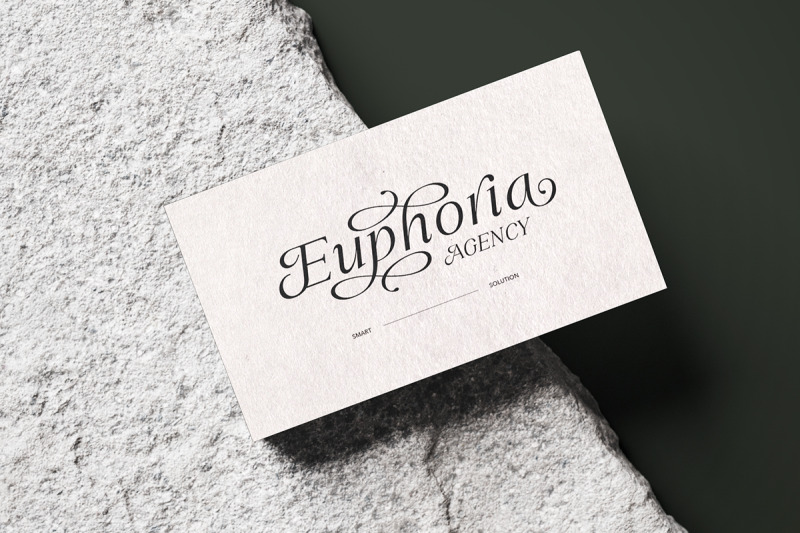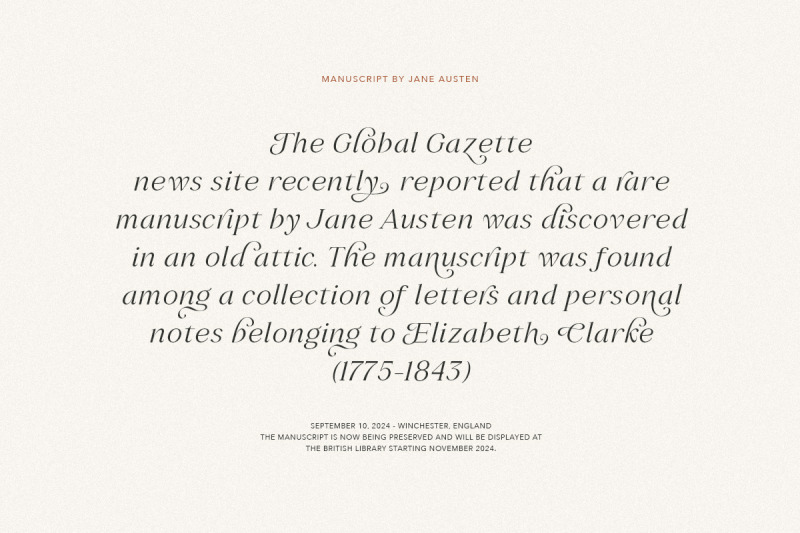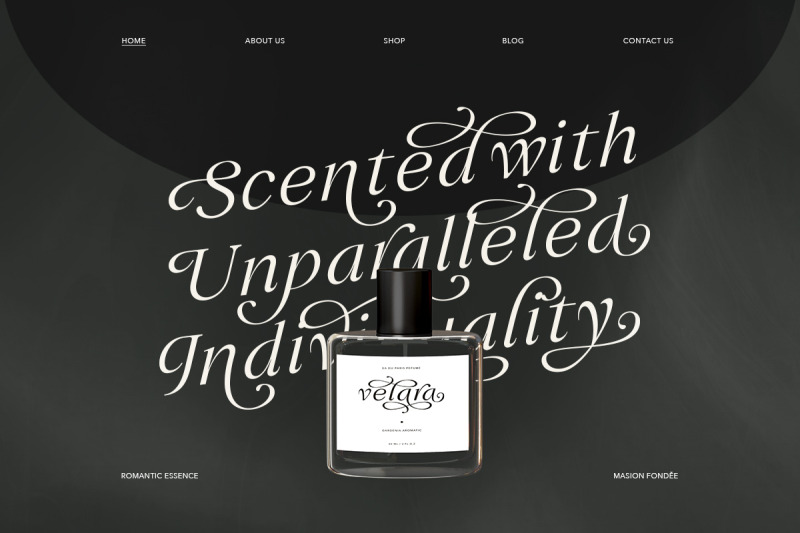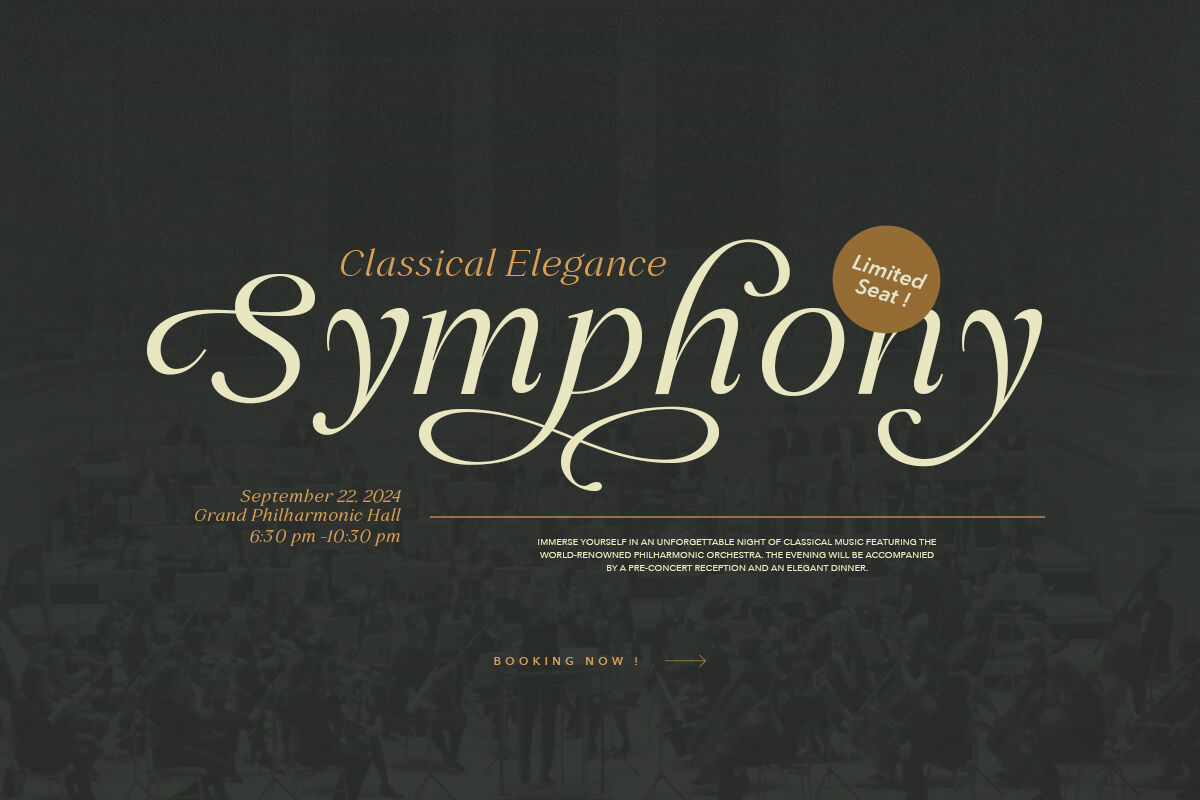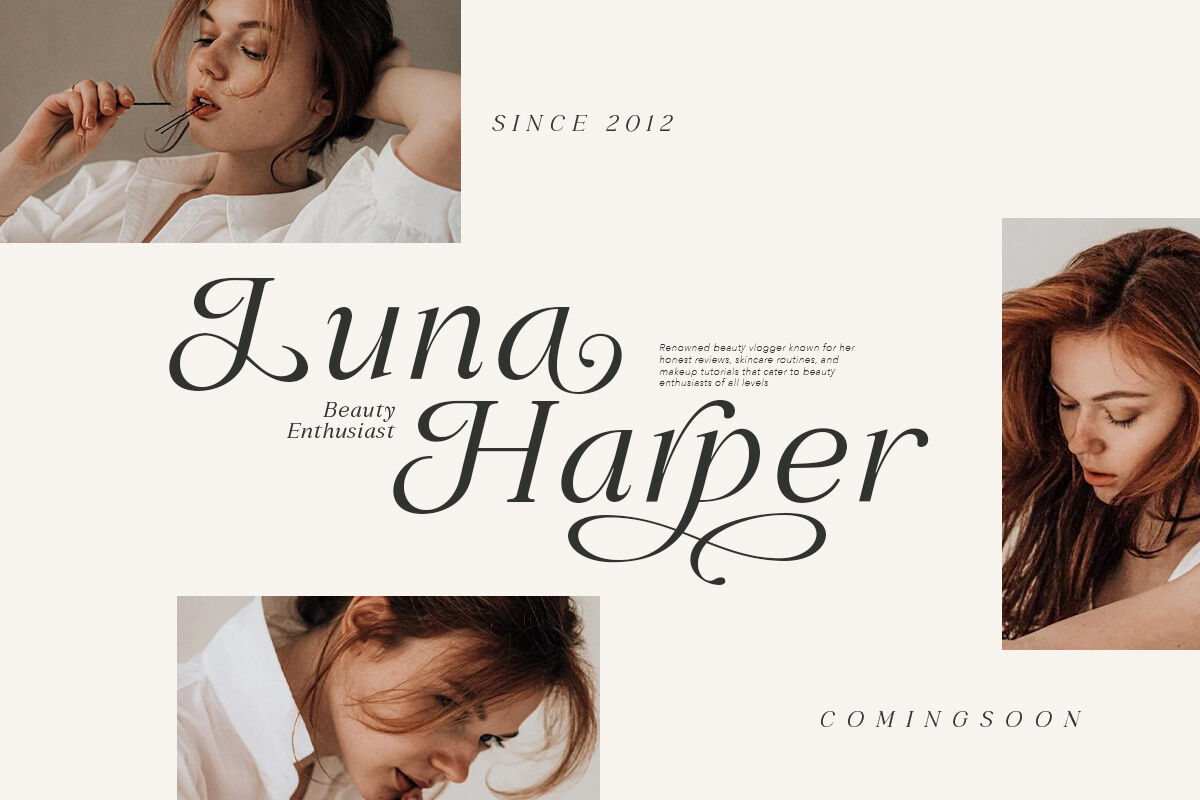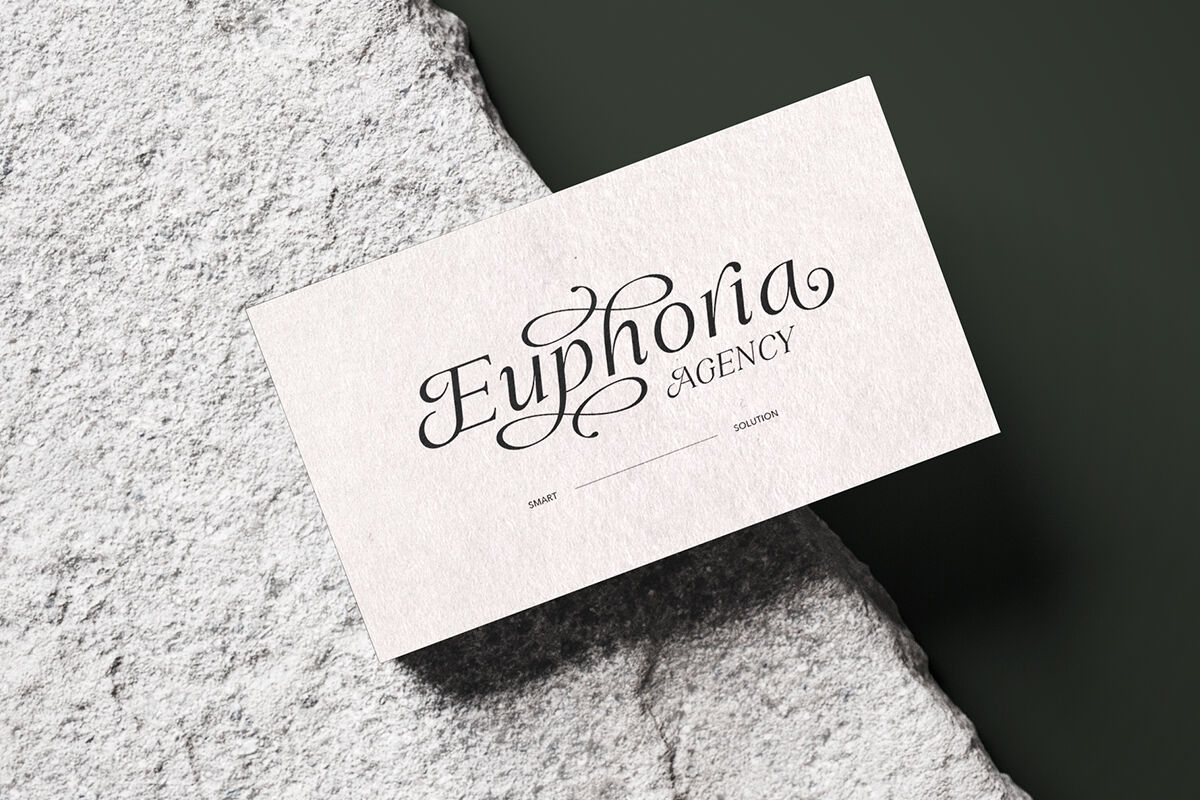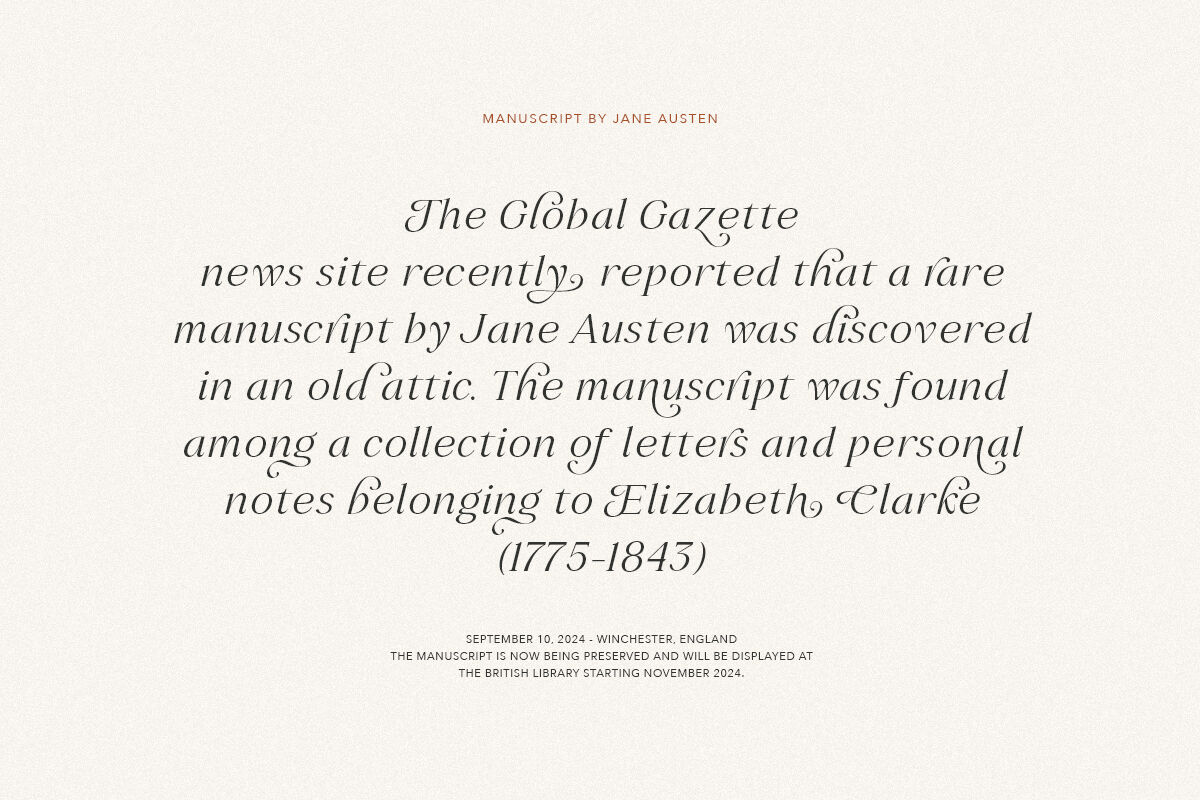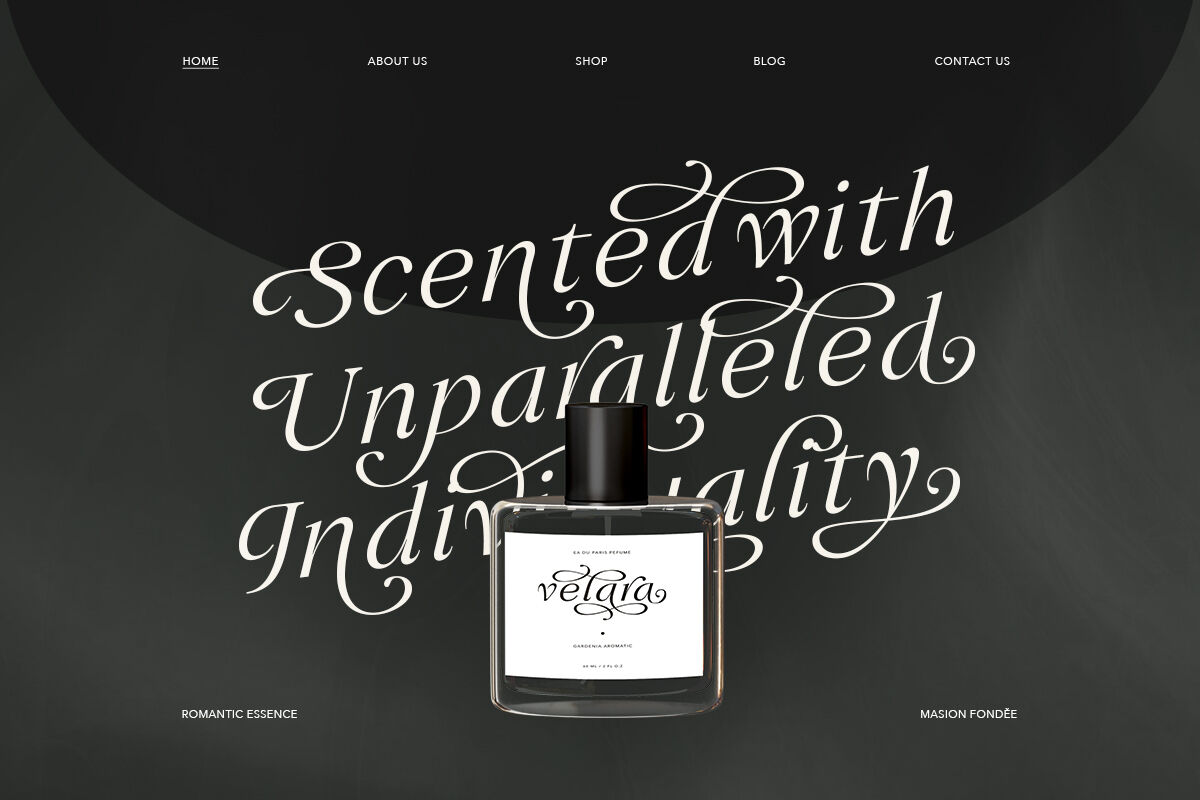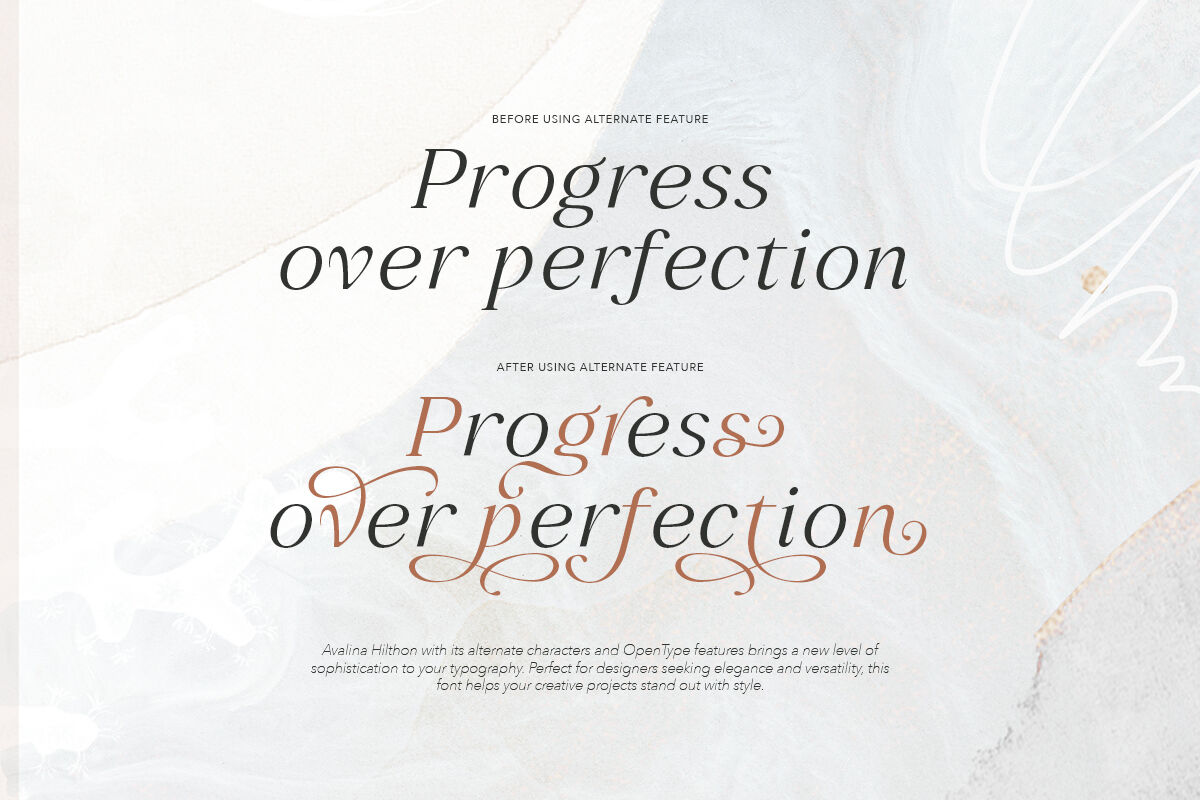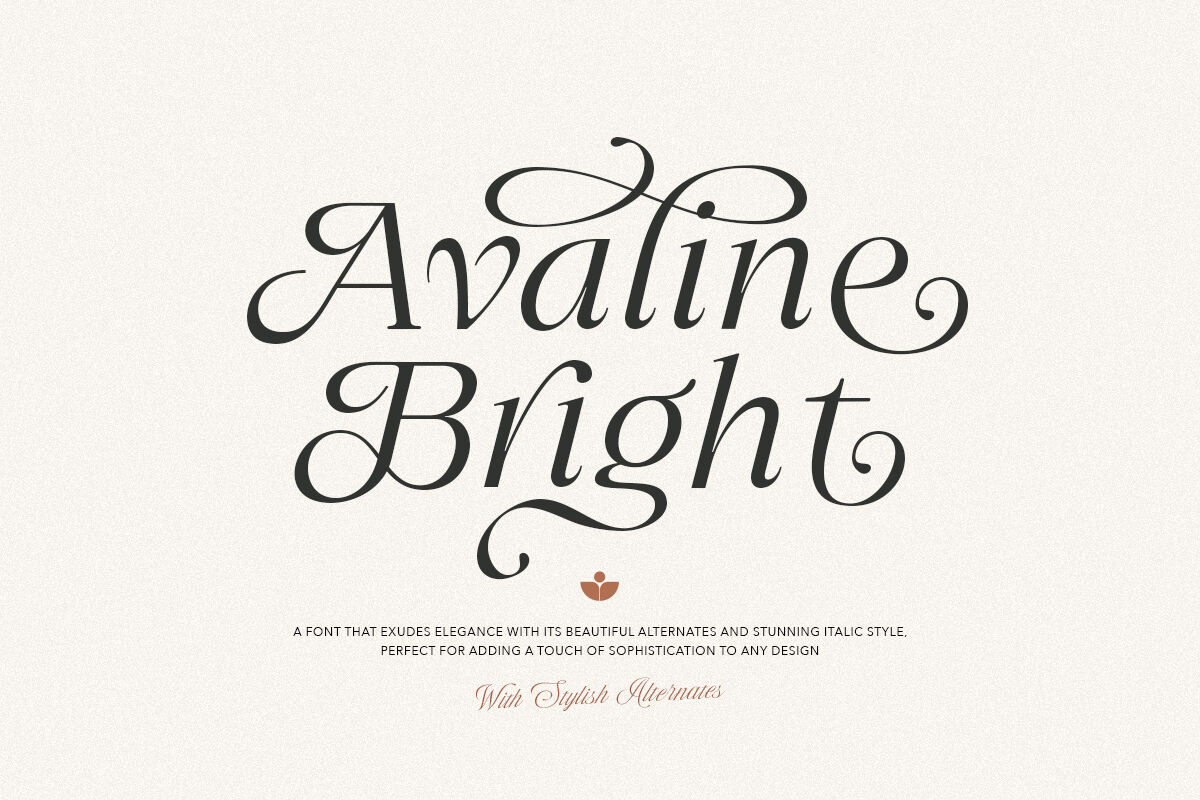
Avaline Bright - Luxury Italic Font
Avaline Bright is a luxury and modern italic font based from serif. With stylish alternates that you can use to make your design or logo looks elegant and sophisticated. You can use this font for any purpose, such as a wedding invitations, logotype, or quote post. This font also support multilingual.